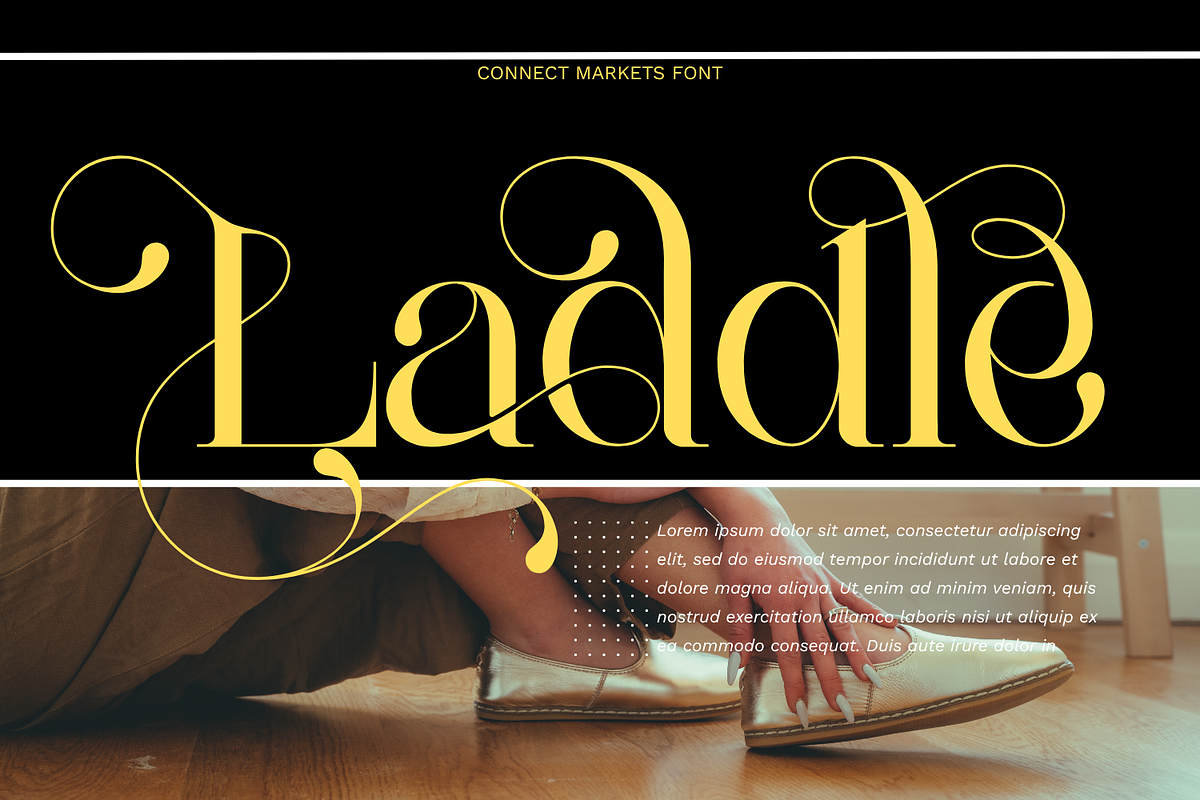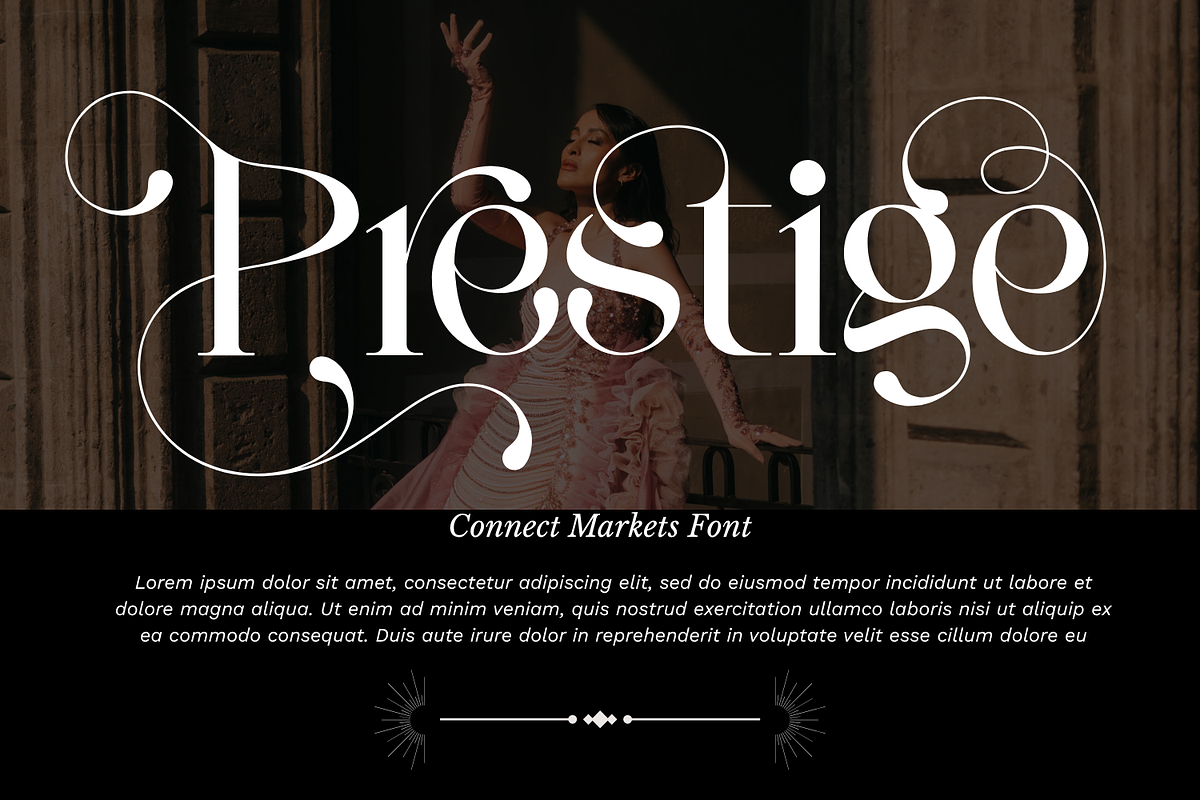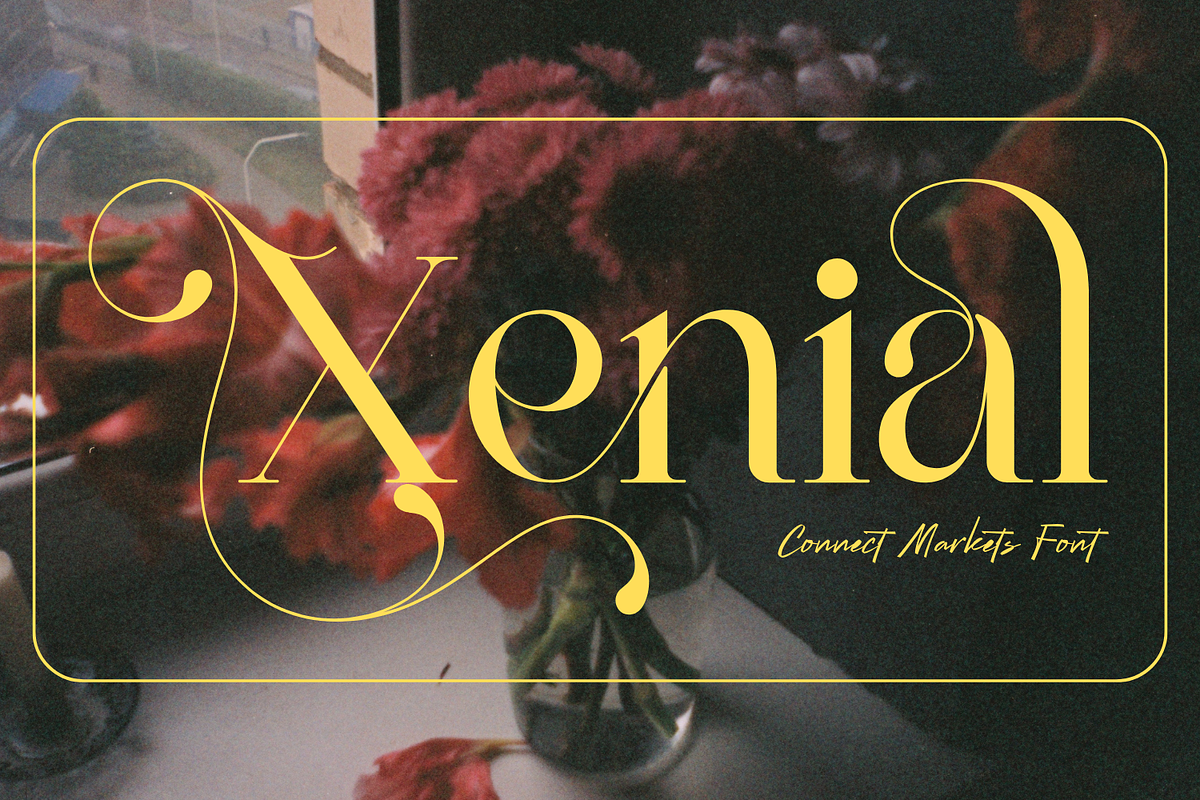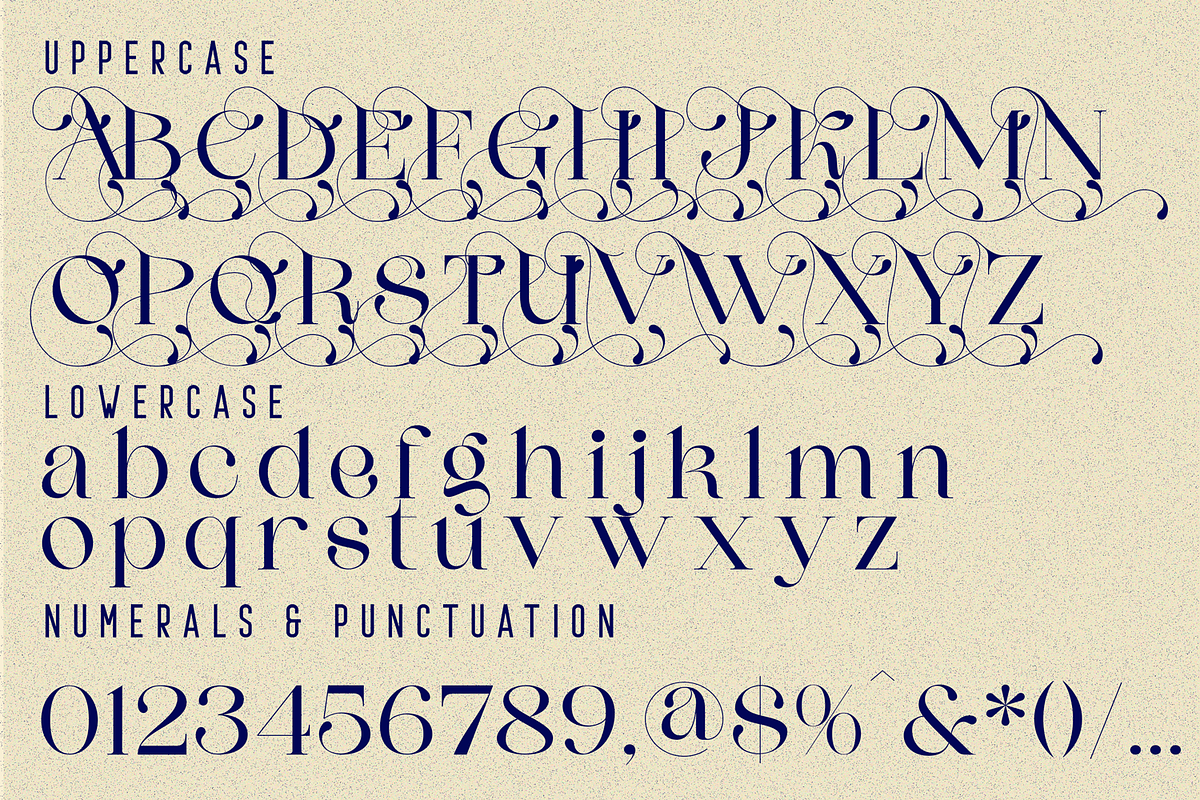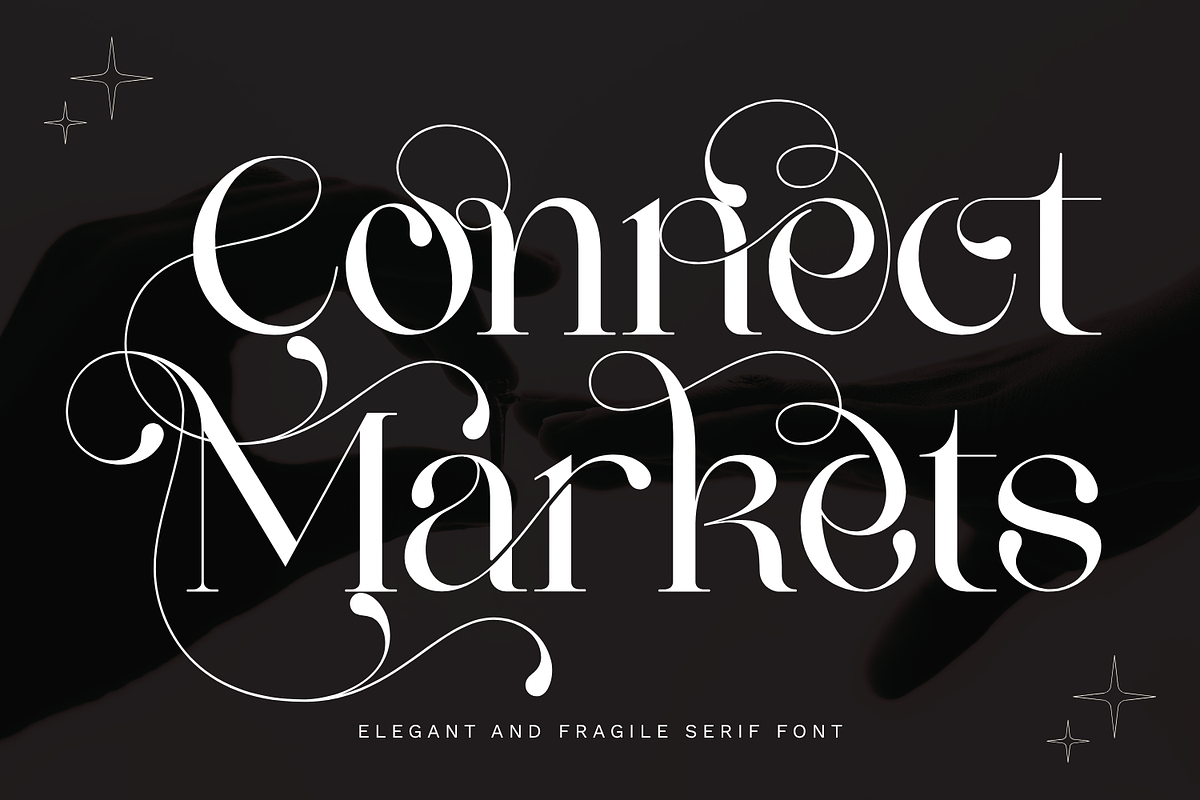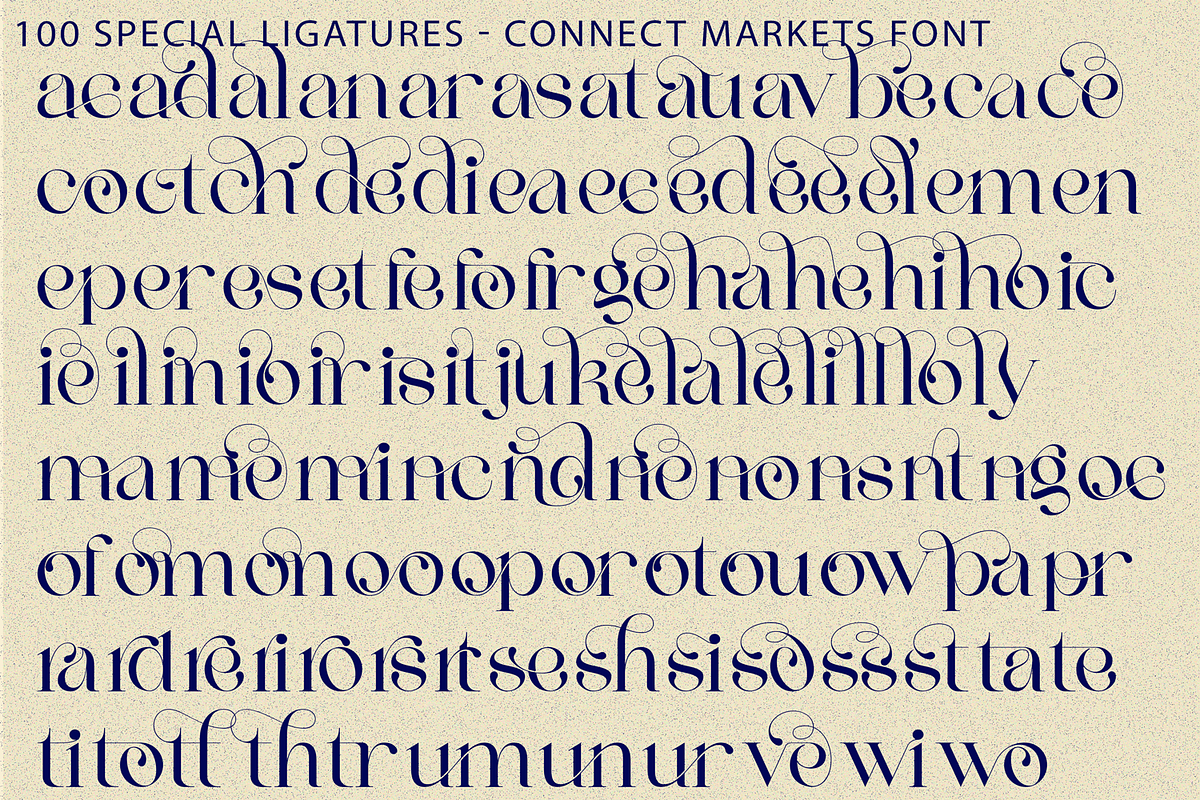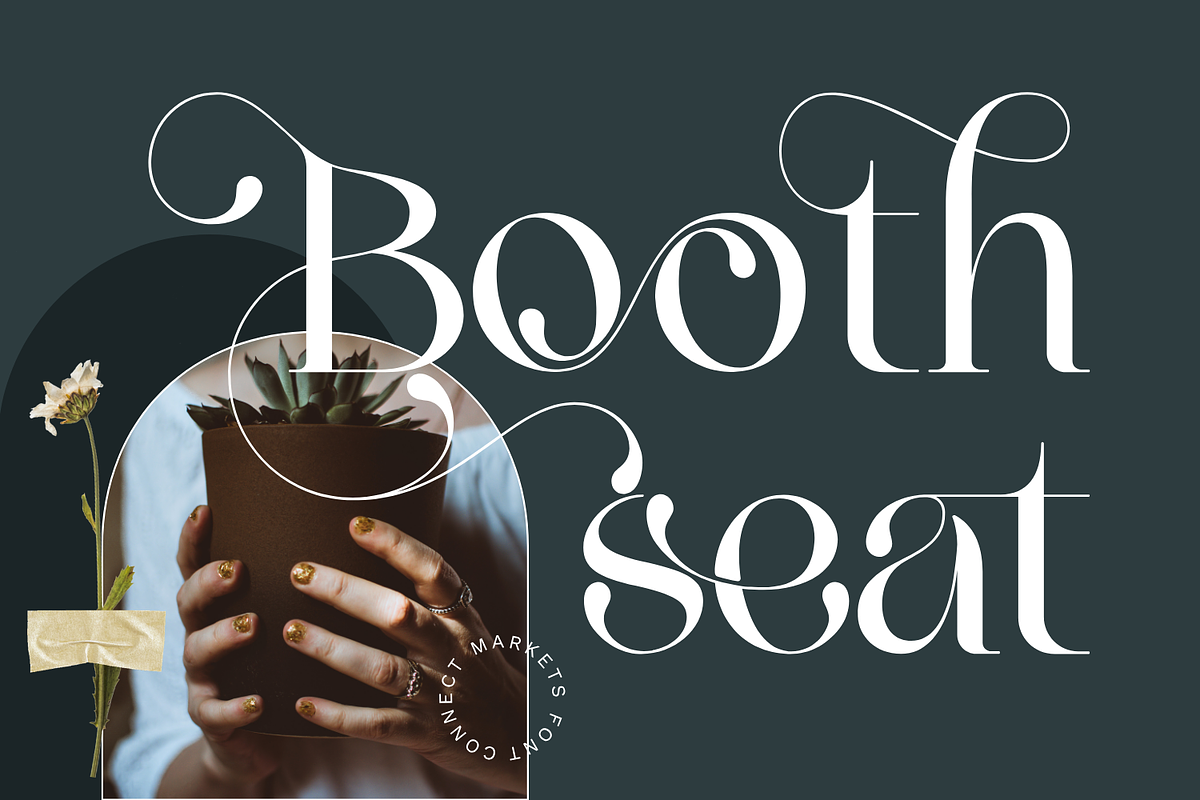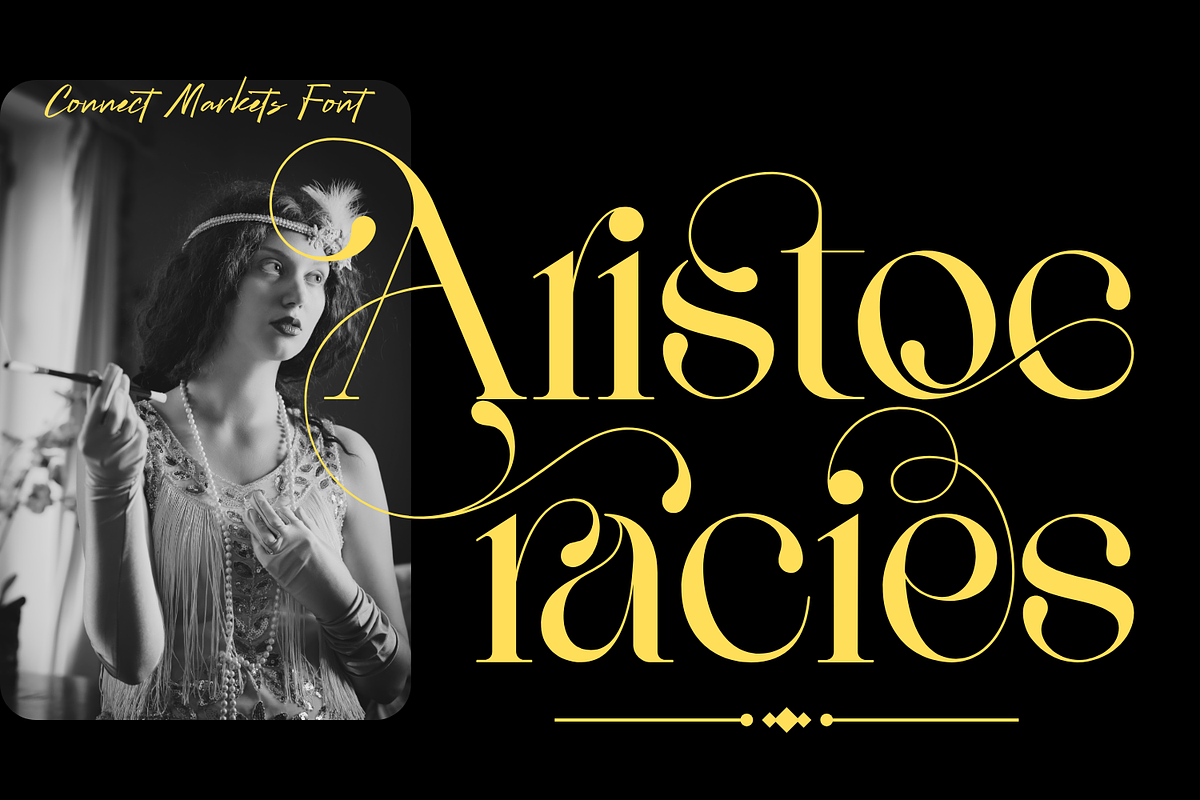
Connect Markets - Modern Serif Font
Connect Markets - Modern Serif Font – Modern Luxury Calligraphic Serif & Victorian Flourish Display Font, is a breathtaking luxury calligraphic serif font designed at the intersection of modern high-fashion typography and romantic Victorian flourishes. Defined by its sweeping hairline swashes, delicate loop spirals, and teardrop terminals, this typeface brings an irresistible sense of royal elegance and artisanal grandeur to high-end design layouts.
Engineered with high-contrast stems and intricate calligraphic loops that float seamlessly around character headlines, Connect Markets allows designers to construct bespoke insignia and luxury logos with minimal effort. It is the definitive typographic choice for luxury wedding stationery, perfume and high-end cosmetic packaging, fashion magazine editorial covers, boutique wine labels, and romantic brand identities.
🔤Features:
Uppercase & Lowercase Letters
Around 100 Special Ligatures & Alternates
Accented Characters for multilingual support
🔤About 100 ligatures combined with Stylistic Alternates Font:
ac ad al an ar as at au av be ca ce ch co ct de di ea ec ed ee el em en ep er es et fe fo fr ge ha he hi ho ie ic il in io ir is it ju ke la le li ll lo ly ma me mi nc nd ne ng no nt ns oc of om on oo op or ot ou ow pa pr ra rd re ri ro rs rt se sh si so ss st ta te th ti to tr tt um un ur ve wi wo